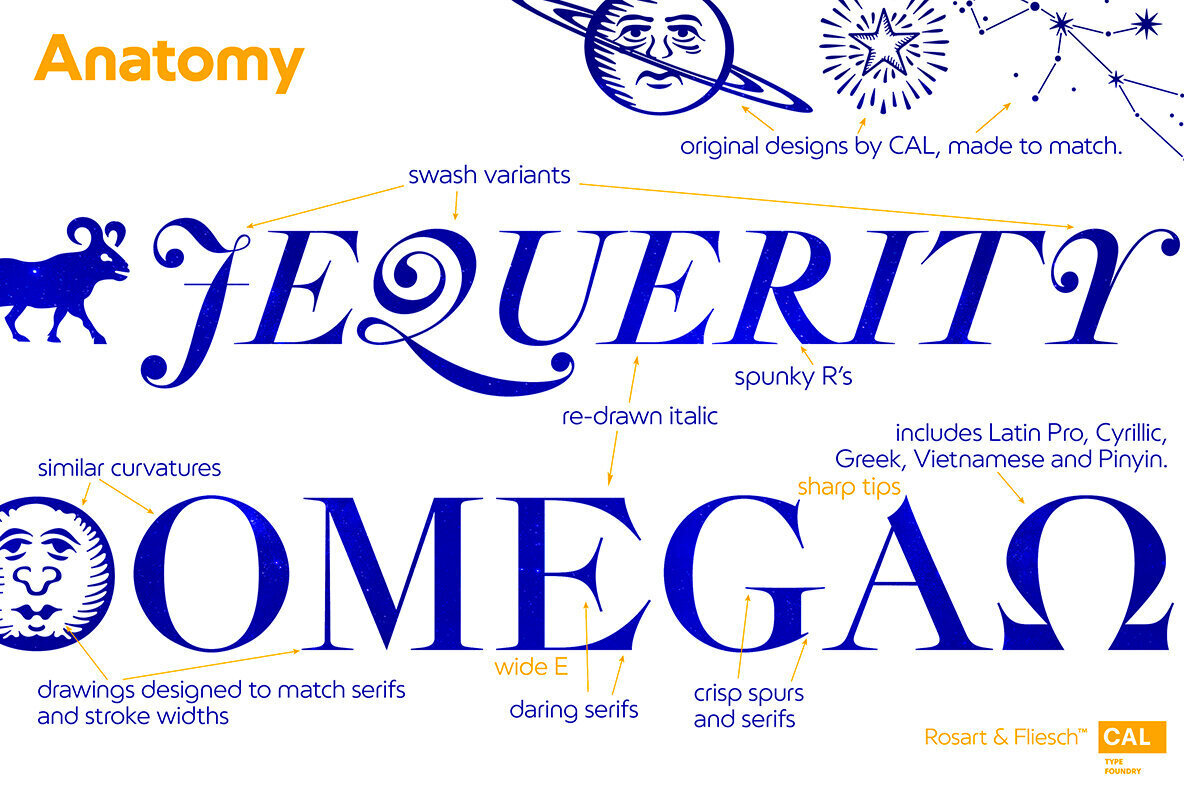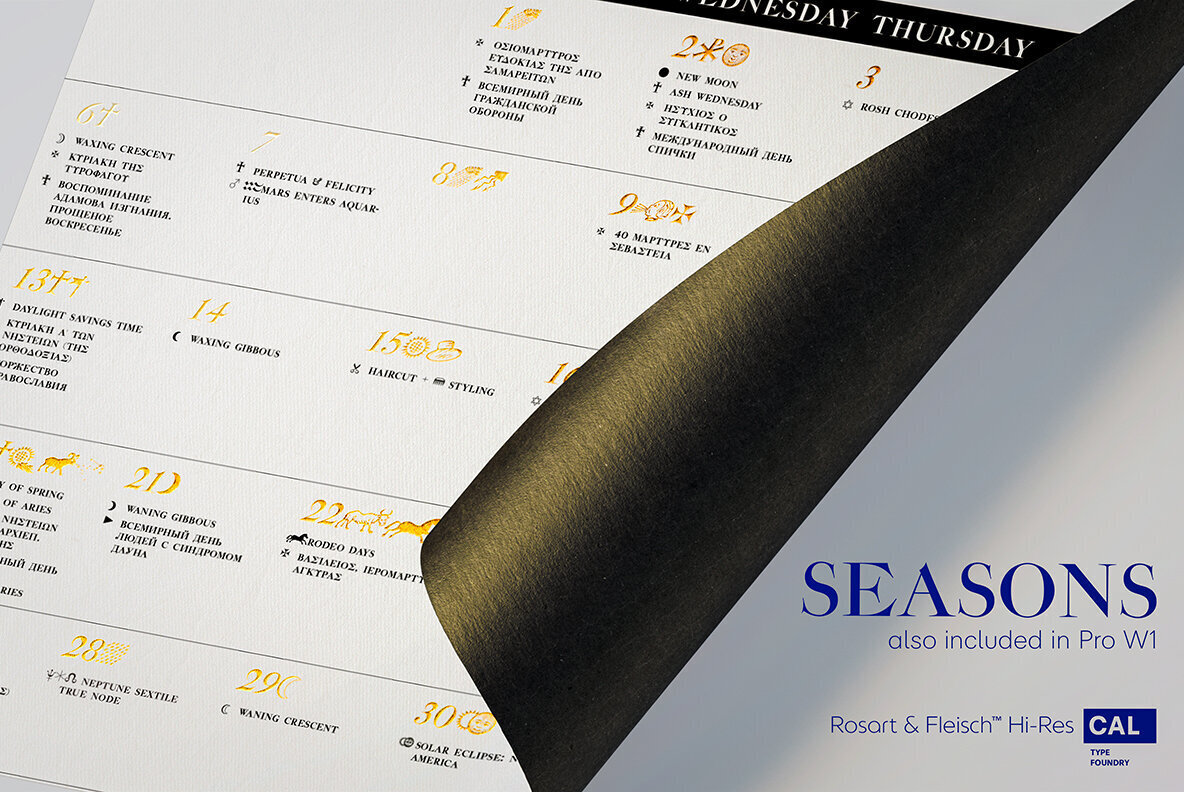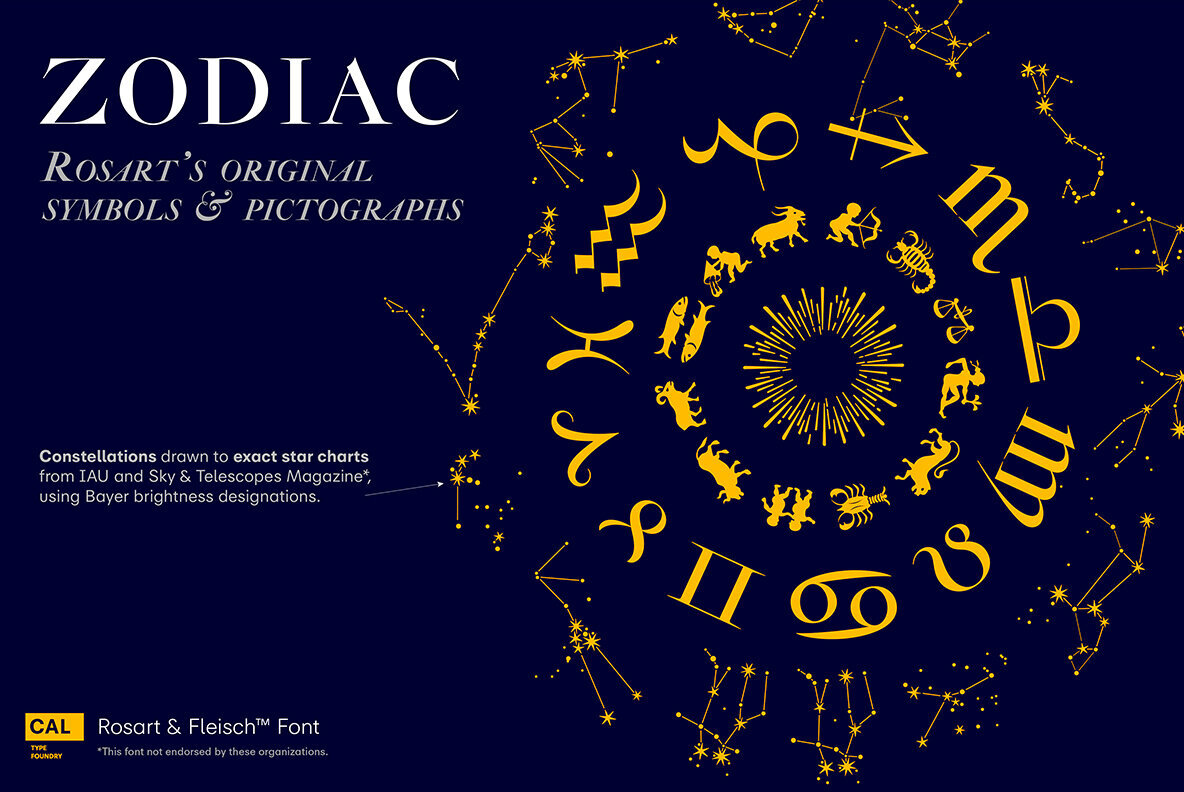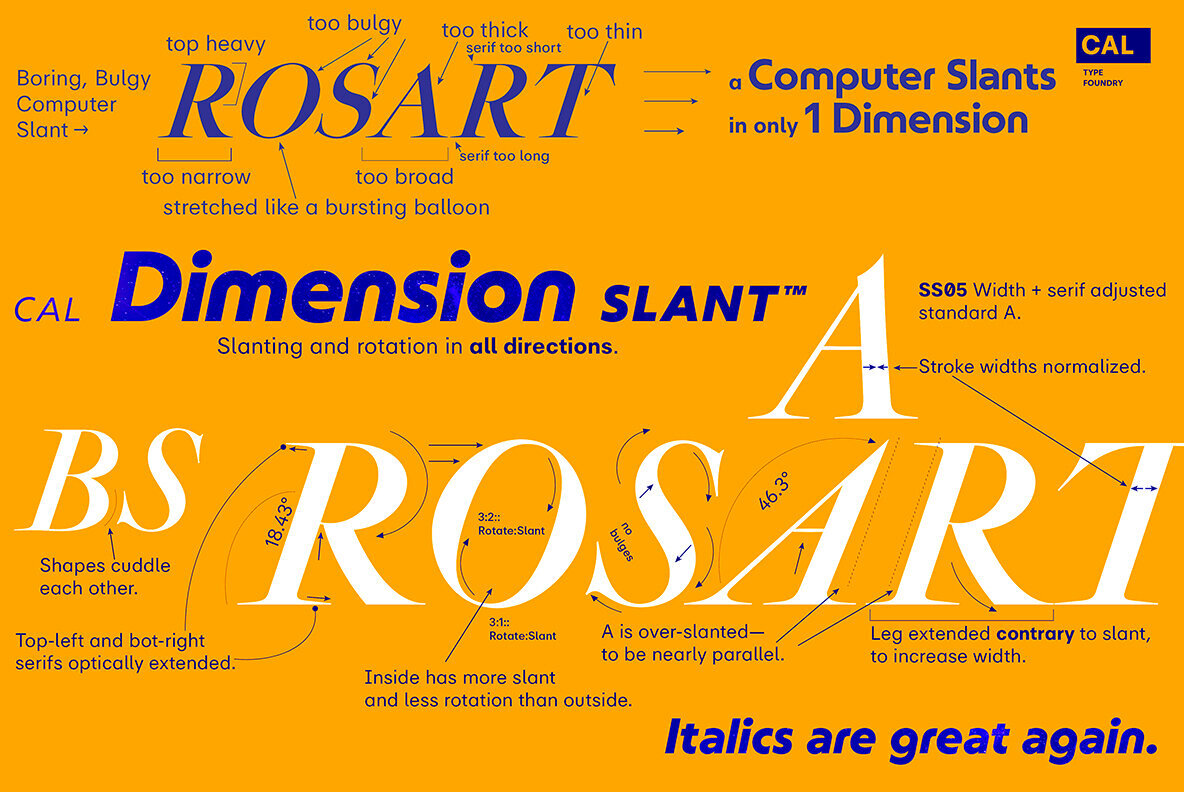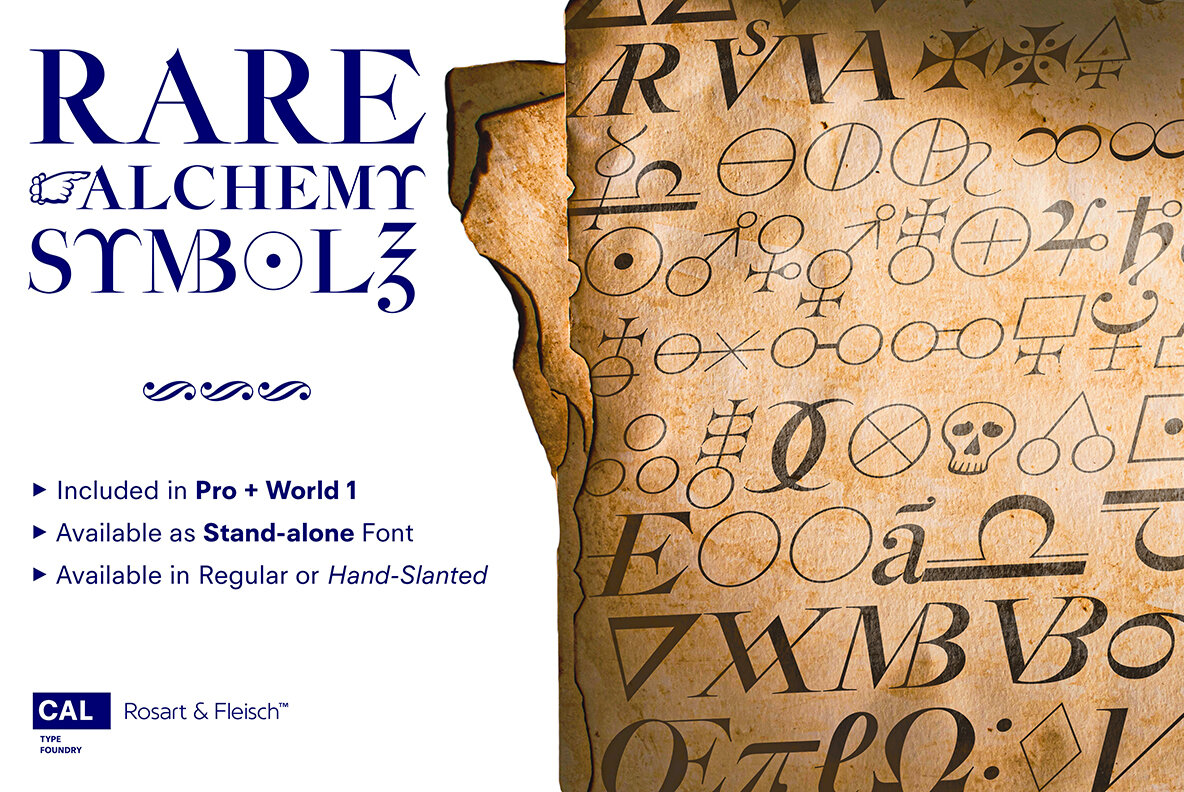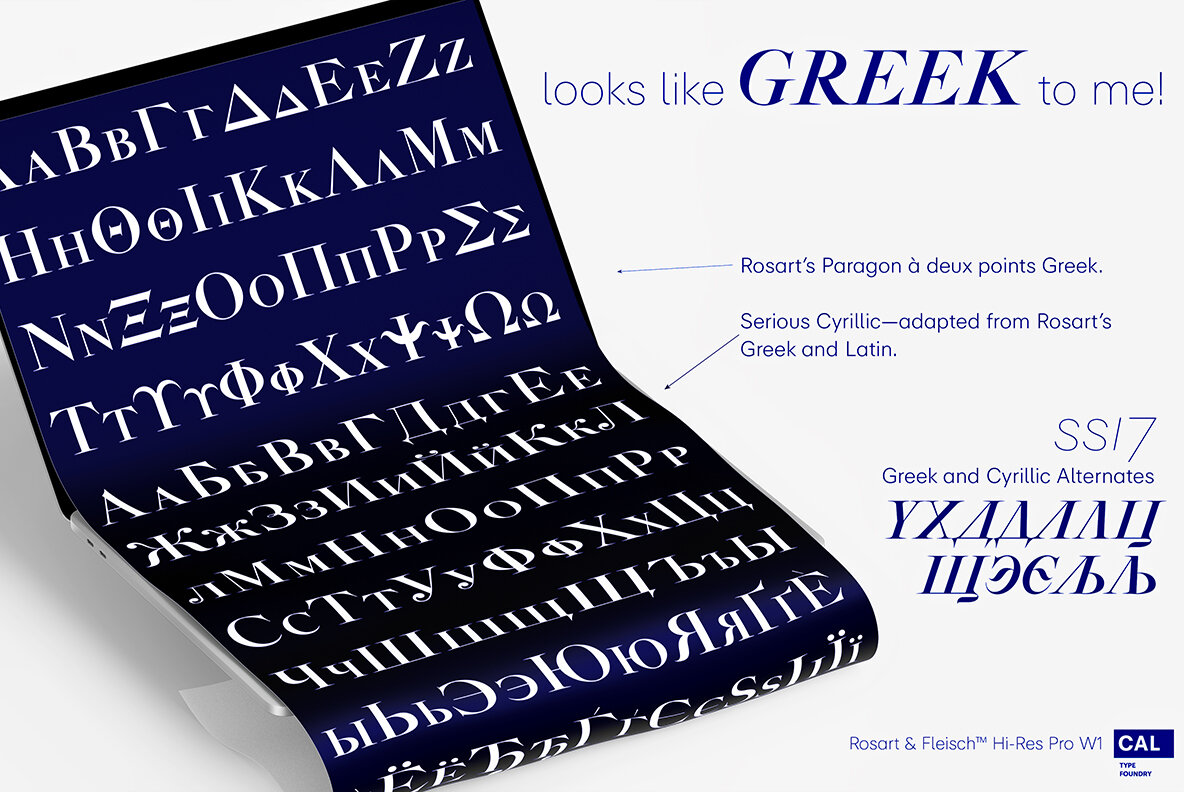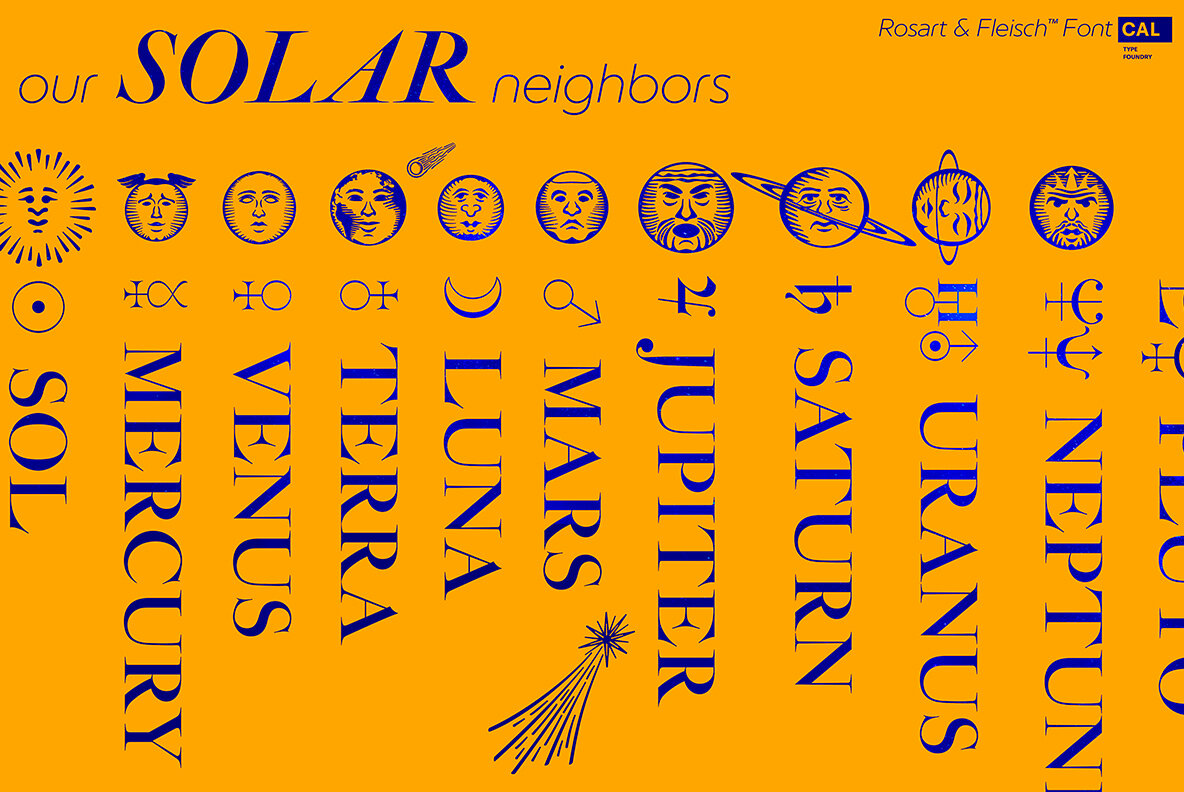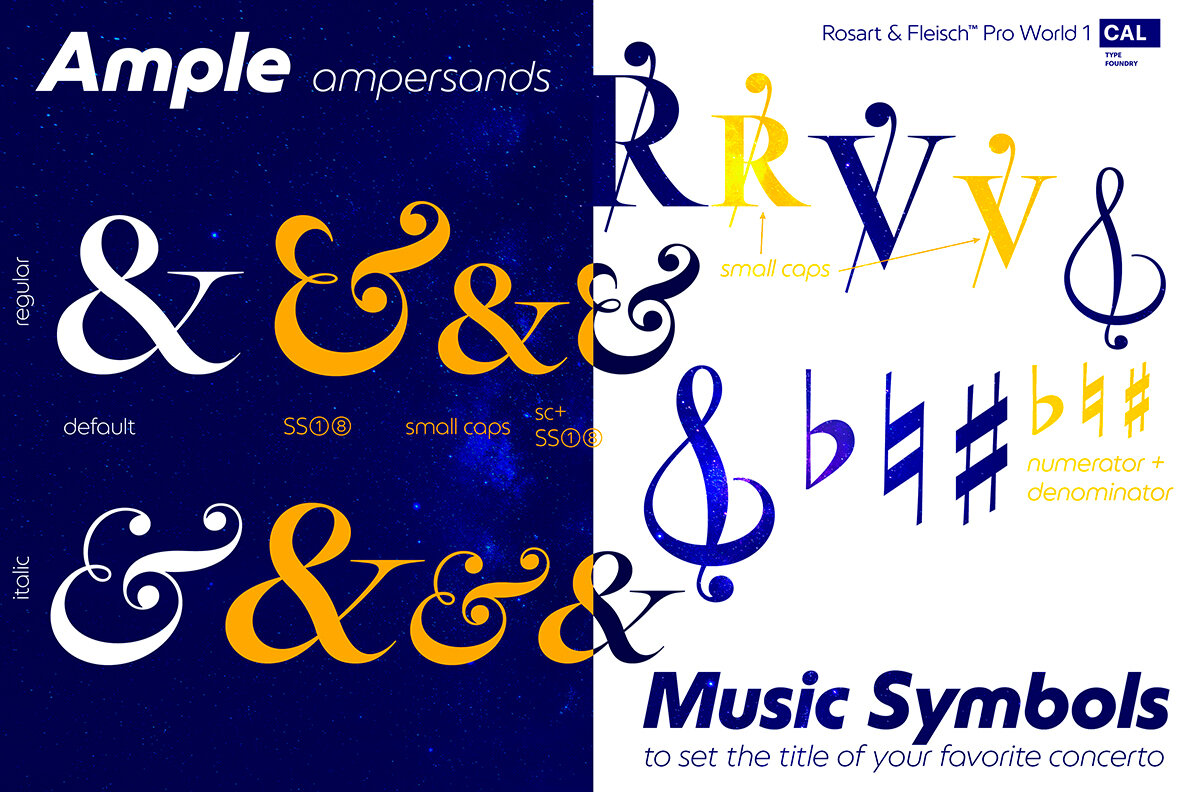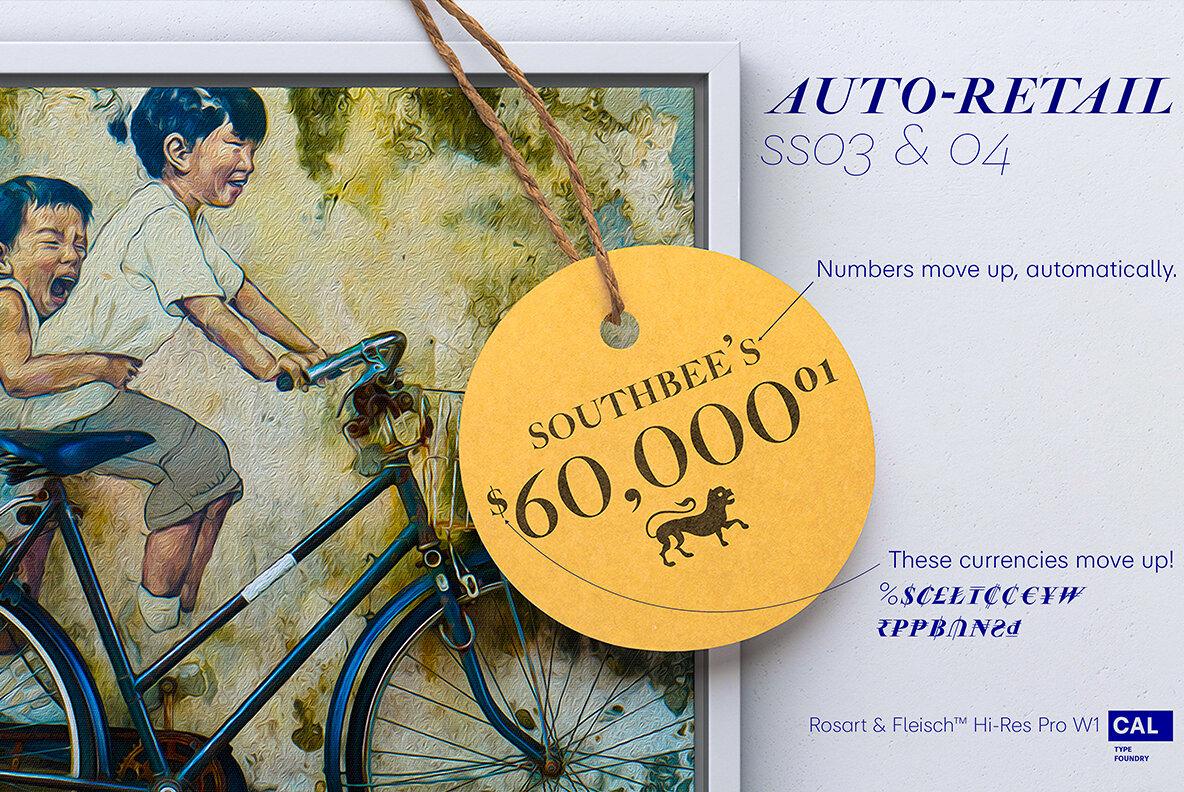
Rosart and Fleisch Hi Res Font
This font is not just historic, but classy, timeless, and in its current form, a modern classic.
The original Titling Caps and icons Jacque François Rosart painstakingly carved, now meticulously digitized to be a true, accurate, and complete representation of the original designs. You can get the fully matching family with "ALL", or choose the set that meets your immediate needs:
Zodiac and Constellations - The Stars Have Aligned into a Great Font
So what's your sign? Whatever it is, R&F has it, and in so many ways! Pictograph, symbol, constellation and picto-constellation are all included. Constellations are useable even in scientific and education settings: based on current star charts and matched to Bayer designations, these stars shine both in design and accuracy!
• Includes Rosart's original moon and sun faces.
• Faces for the planets to match those for the sun and moon.
• Rosart's symbols for the planets.
• Astrology symbols including, Rosart’s pictographs for the twelve signs.
• Constellations of the Zodiac from precise star charts.
• Precise small star shapes, so you can design other constellations.
• Pinwheel, saltires, asterisks, solid stars, and even the Christmas star.
• Dave Lawrence, "Each symbol was carefully designed to match the main font."
Alchemy Symbols - Turns A Design into Gold
From labeling your cupboard of magical ingredients to getting one step closer to the golden goose, these rare alchemical symbols are a treasure trove of possibilities. Including:
• classic symbols for elements
• combinations
• medicinals
• chemistry
• mathematical symbols
• Includes music symbols for titling, as well as Verse and Response symbols.
Seasons - Symbols to Keep Things Organized Throughout the Year
Classic weather stylings, including old fashioned lightning and an eclipsing moon with the four-o'clock shadow. Also:
• Map Markers
• Religious Symbols
• Phases of the moon.
• Pointing symbols: fingers, arrows, triangles, with circles
Matching Italics CAL's Dimension Slant™
Instead of sloping all the pictures and drawings to an even slant, a multidimensional approach was used. And each symbol was evaluated and crafted individually.
Pro World1 Font The pro world font contains all of these:
• Latin Standard set
• Rosart's original backwards X alternate. Alternate U shape.
• In the italic: swash variants for the J, Q, and Y.
• Proportional Lining (default), proportional old style, small caps figures.
• CAL Dimension Slant, for dynamic italics
• Music symbols
• Mathematical symbols
• Pointing symbols like the finger, acorn, arrow and triangle.
• Geometrical shapes.
Plus these more:
• Latin Pro character set for central European languages and Turkish.
• Rare kerns for Polish, Czech, Slovakian and others.
• Ligatures needed for some central European orthographies.
• Lowered German Umlauts for better line spacing.
• Cyrillic uppercase and small caps for eastern Europe, southern Europe, and Russia, with kerning.
• Rosart’s original Greek uppercase and small caps, but also tonos for monotonic Greek.
• Vietnamese, which has been kerned.
• Pinyin, including a special form of the Ü so that titles can be set closer.
• Numbers: A set of stacking (nut) fractions, along with very elegant automatic fractions
• A large set of currency symbols in lining, old style, small caps, denominator and numerator sizes.
• Our first Retail Pricing Feature: (ss03 + ss04) Just turn on the feature and type $1.99 and Rosart will do the rest.
• Ampersand alternates.
• Numerator sized musical sharp and flat symbols.
Dave Lawrence, “From the moment I saw these letters I knew I had to make this typeface. What I didn’t know was that I would end up drawing most of Rosart’s special symbols... But it was too hard to resist."